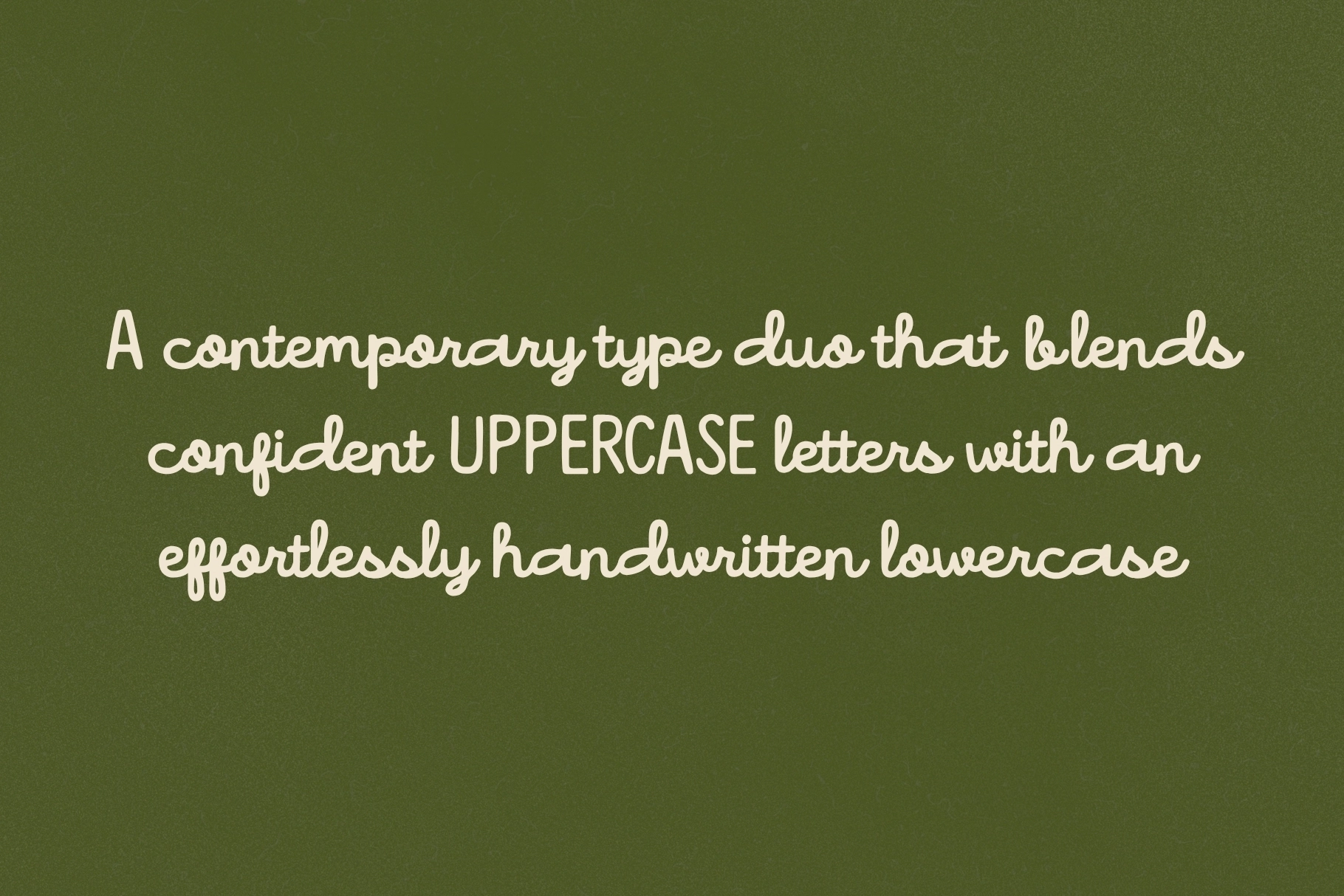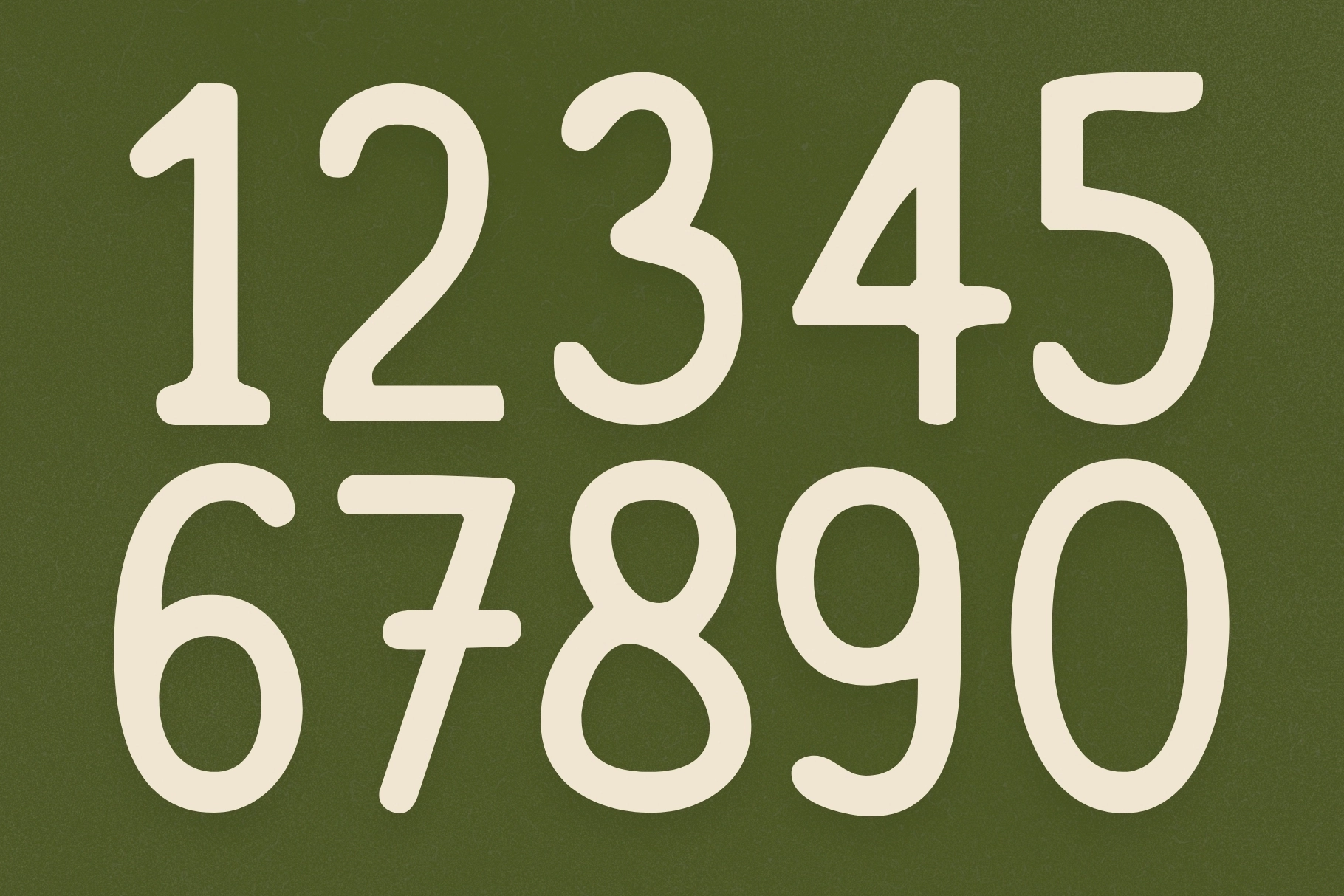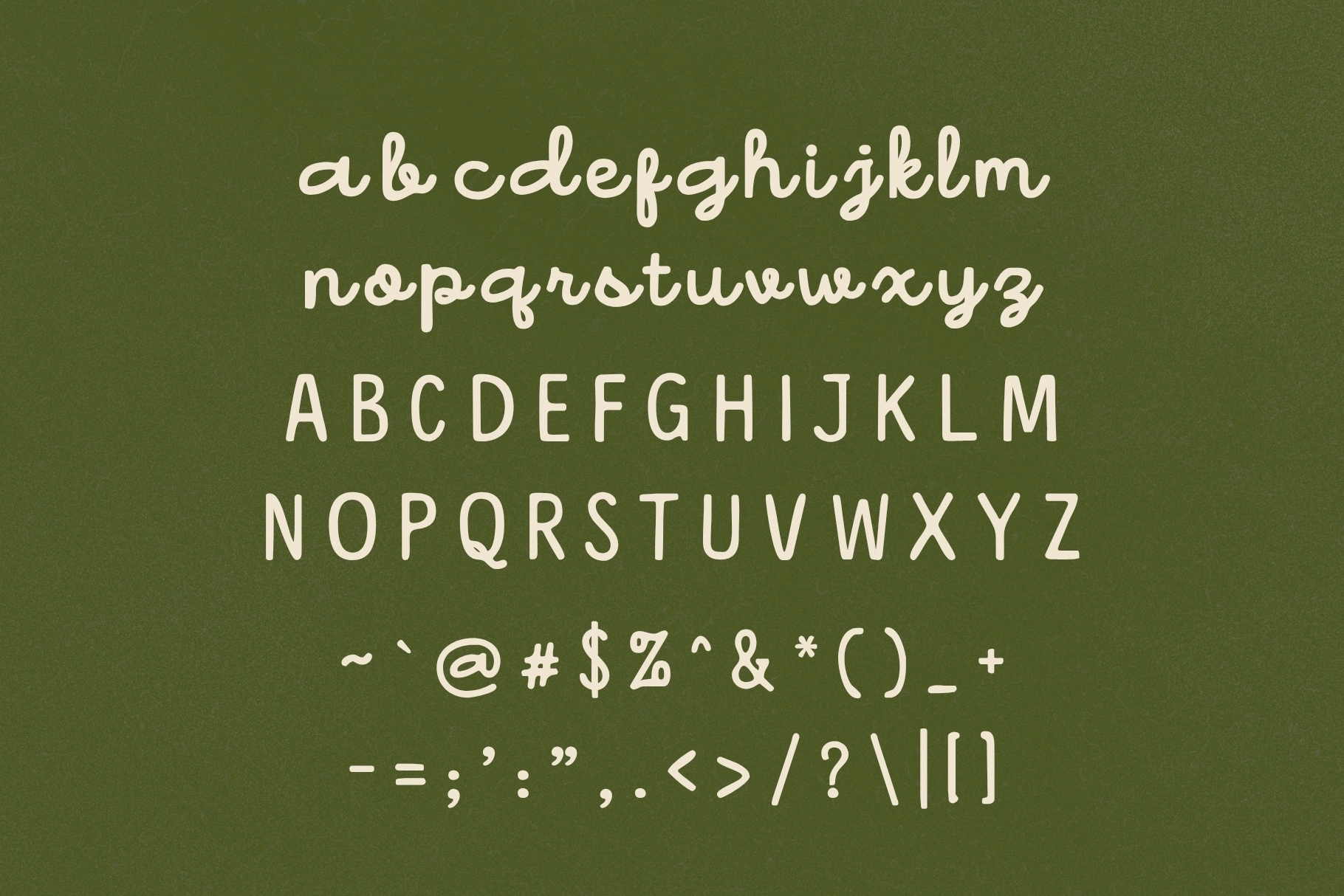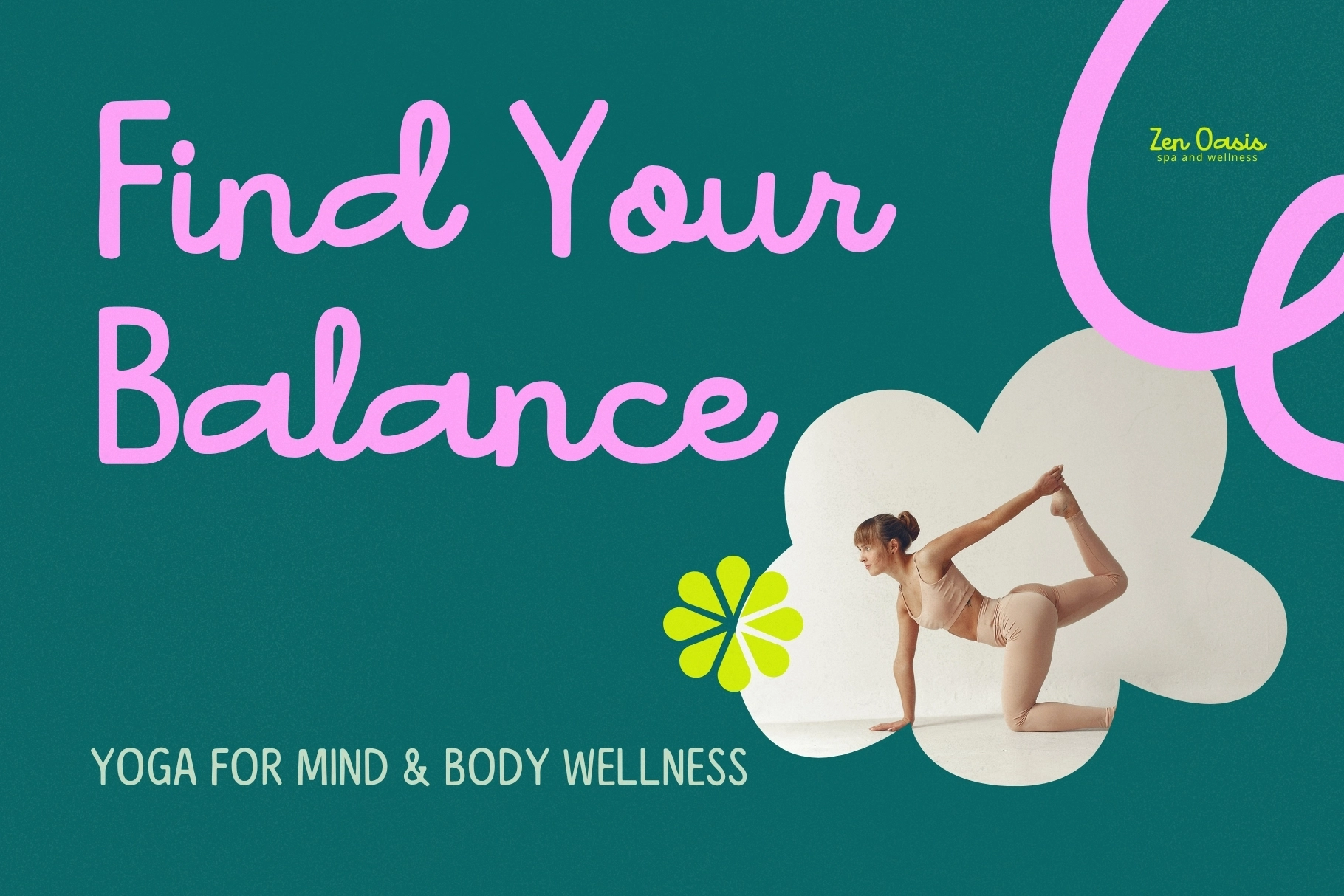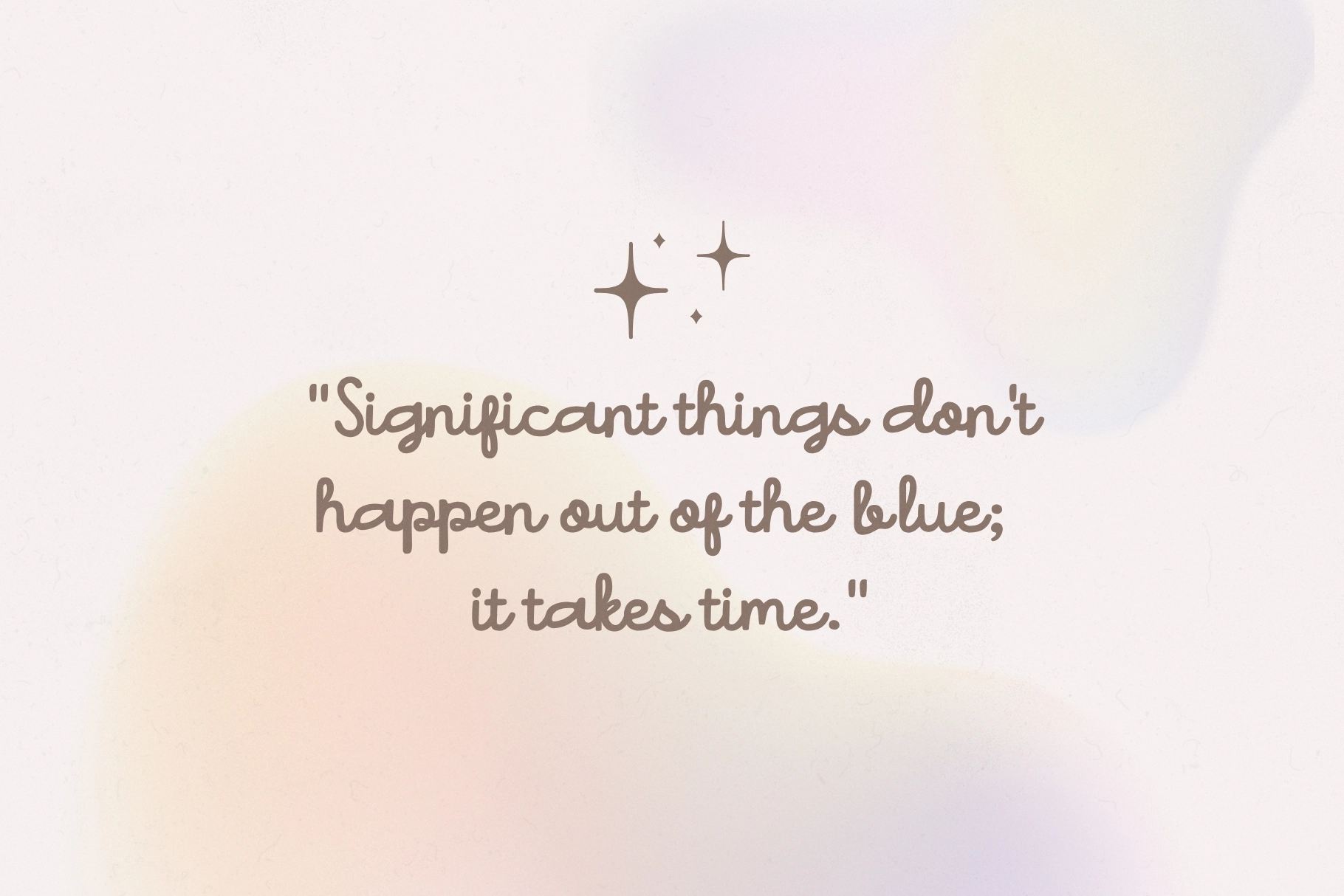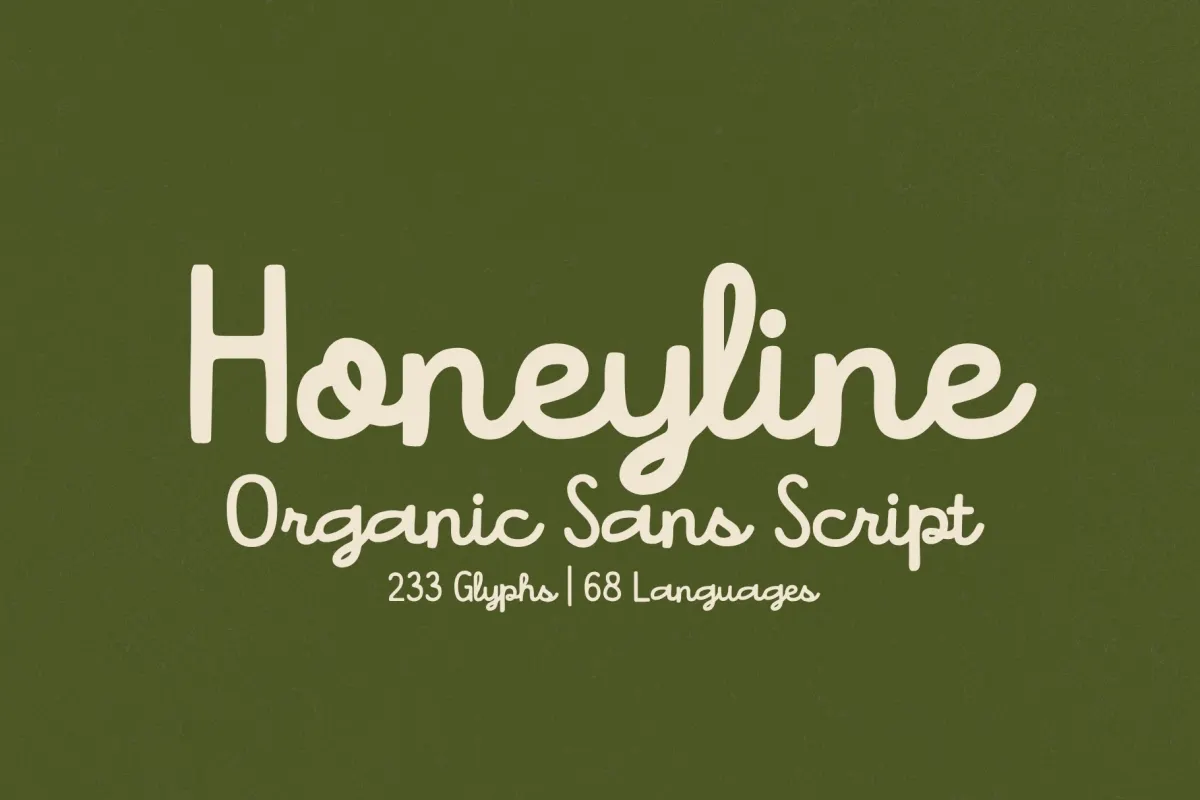
Honeyline - Organic Handwritten Duo Font
Honeyline
Honeyline, Organic Handwritten Duo Font draws on casual brush lettering and mid-century advertising scripts, pairing rounded sans capitals with a fluid handwritten line that echoes café signage and lifestyle packaging. It works well for branding, social media graphics, product packaging, boutique logos, editorial headlines, and hospitality visuals, offering a friendly rhythm that feels relaxed yet composed.
- Uppercase sans style letters
- Handwritten lowercase script
- Numbers & punctuation
- Smooth natural curves